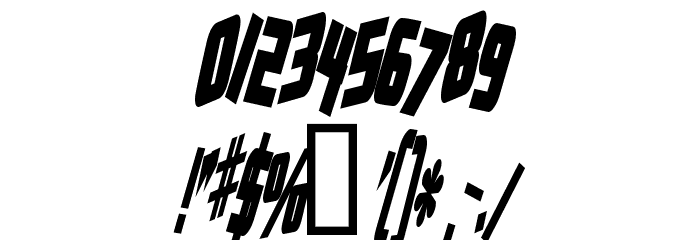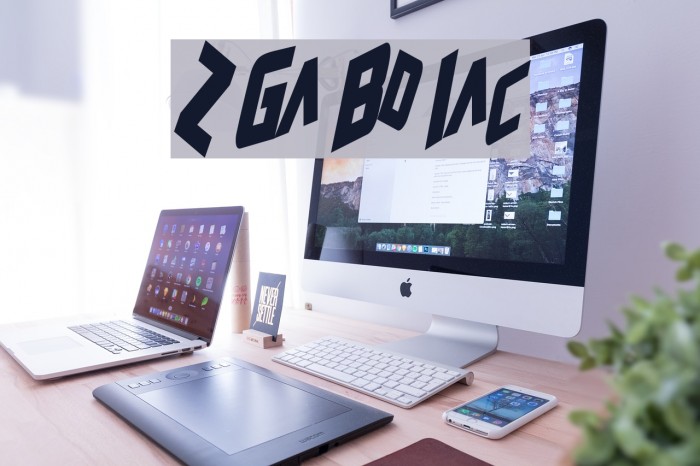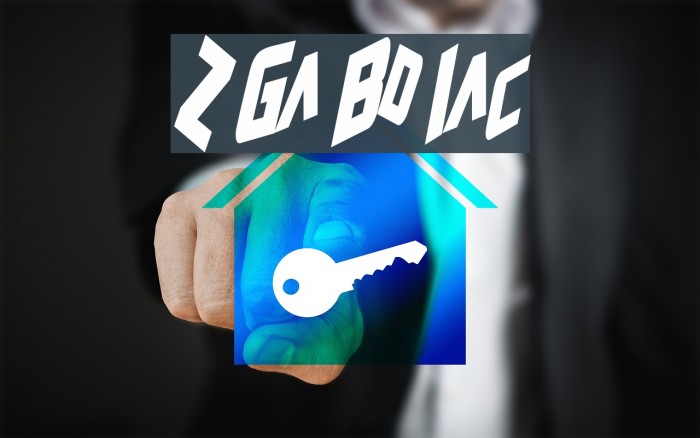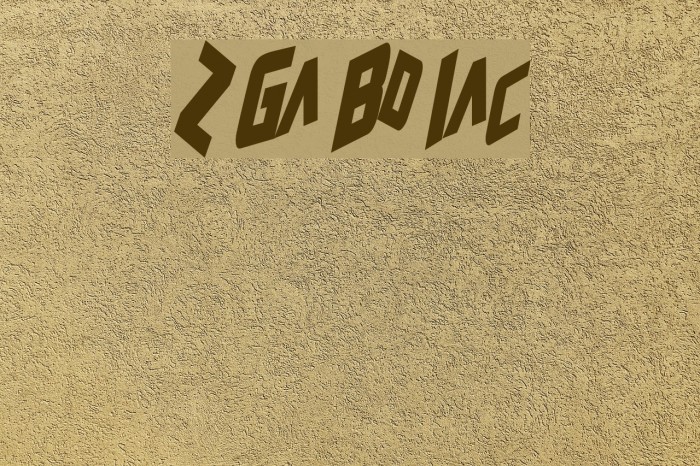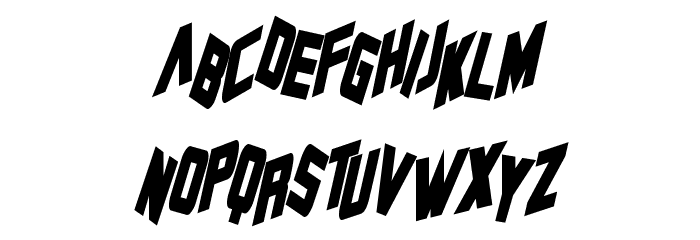
Zero Gravity Bold Italic Font
This dynamic and bold typeface features a striking italic slant, giving it a sense of motion and energy. The characters are robust and angular, with sharp edges and a strong presence. The uppercase and lowercase letters maintain a consistent style, with the uppercase being particularly impactful. Numbers and special characters are designed to match the boldness of the letters, ensuring a cohesive look across all text elements. The font's unique style makes it ideal for attention-grabbing designs.
A bold, italic typeface with a dynamic and angular design.
• Proposed Projects: Ideal for sports branding, action movie posters, video game titles, and dynamic advertising campaigns.